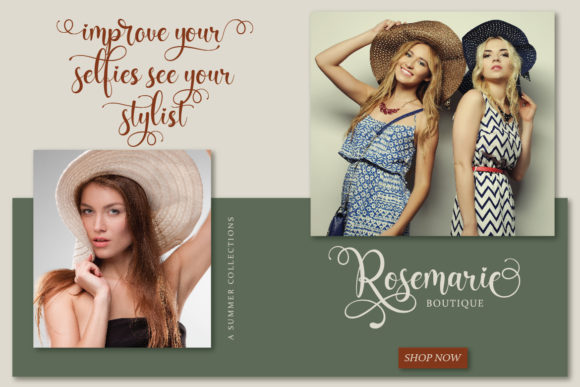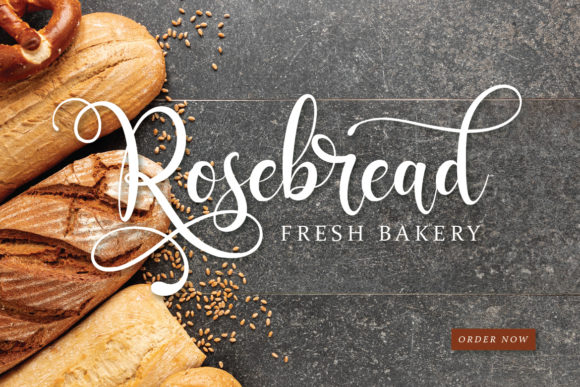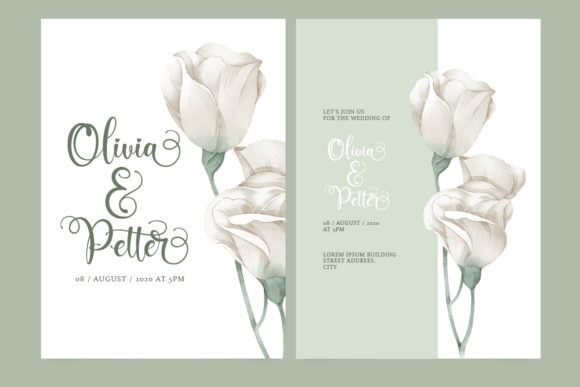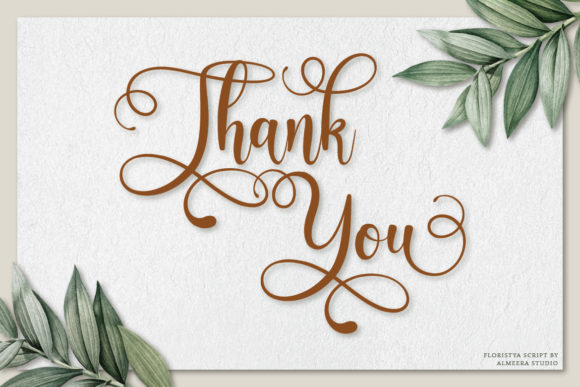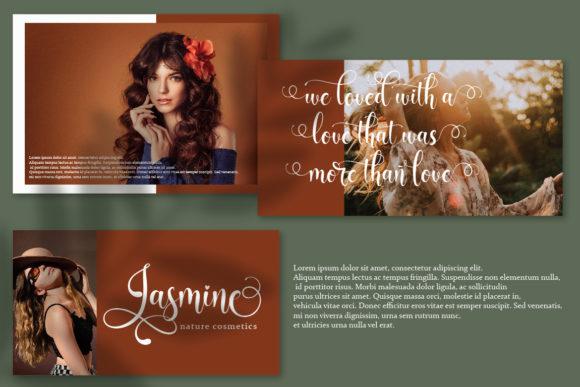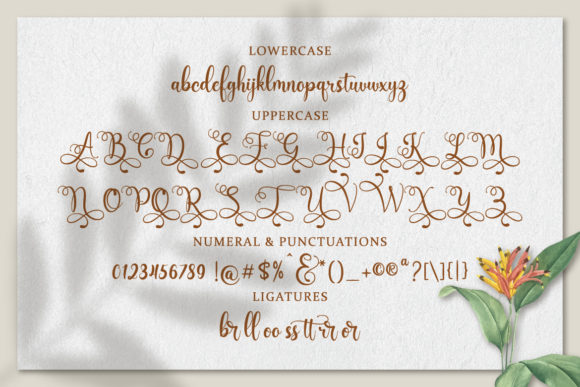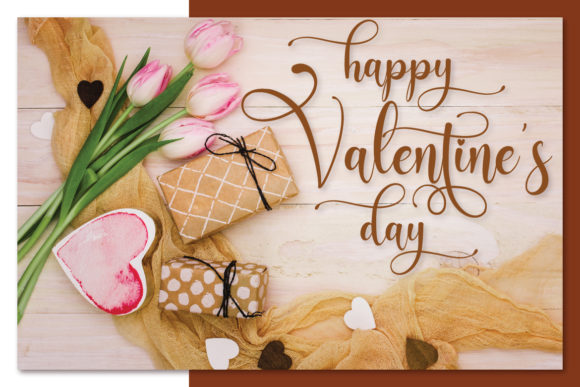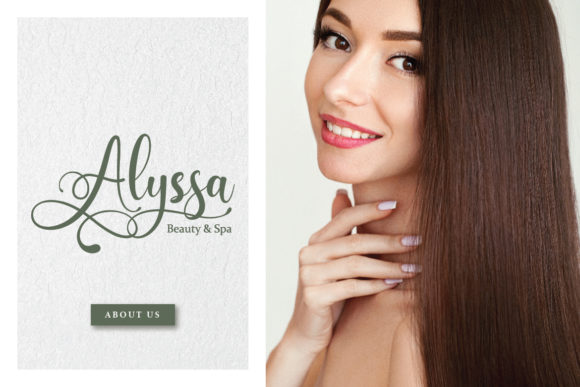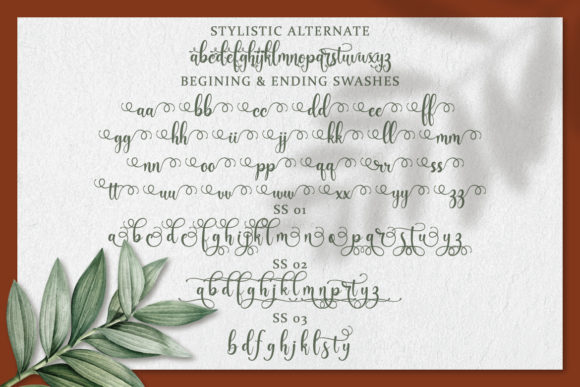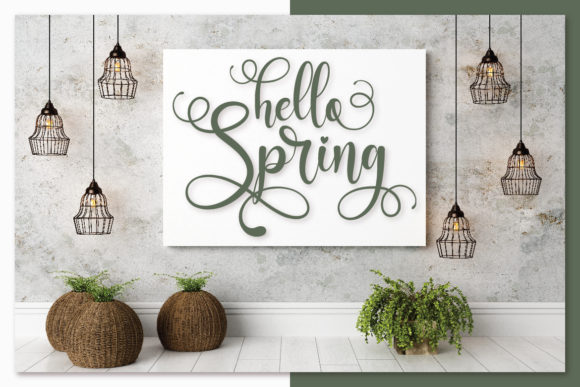
HomeScript FontsFloristya Font Script Fonts Floristya Font FacebookXPinterestWhatsApp Floristya Font Poster 2 Floristya Font Poster 3 Floristya Font Poster 4 Floristya Font Poster 5 Floristya Font Poster 6 Floristya Font Poster 7 Floristya Font Poster 8 Floristya Font Poster 9 Floristya Font Poster 10 Floristya Font Poster 11 Floristya Font Poster 12 Floristya Font Poster 13 About Floristya Font Floristya feels equally playful and elegant, making it an incredibly great addition to any craft library. DOWNLOAD NOW People also explored Arpeggio Font Sweet Love Font Black Ash Font Cinderella Font Fresh Lemonade Font Jasmine Tea Font Country Field Font Rainy Day Font Bird and Roses Monogram Font 325 0 TagsFloristya Font Previous articleKabut Hitam FontNext articleForth Smith Font LEAVE A REPLY Cancel reply Comment: Please enter your comment! Name:* Please enter your name here Email:* You have entered an incorrect email address! Please enter your email address here Website: Save my name, email, and website in this browser for the next time I comment. Personal Use Free Kaylafiz Personal Use Free Read more about this font Built Tilting Personal Use Free Read more about this font Persephone Free Personal Use Free Read more about this font BD Lofi Personal Use Free Read more about this font BLOG How to Cut Any Font on Cricut: Convert a Font to SVG (Free) Turn any font into a clean SVG so it cuts crisp on Cricut - a quick 3-step workflow using a free font-to-SVG tool. The 10 Best Handwriting Fonts to Add Personality to Your Designs Best Fonts for T-Shirt Design – Top 2025 Picks How to Install and Use Fonts on Windows, macOS, and Web Projects